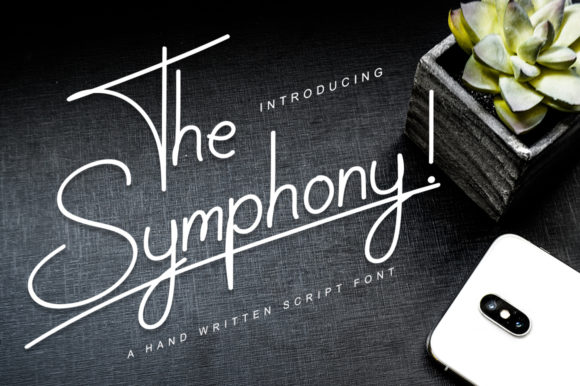
Unleash the Harmony of Expression with The Symphony! Font: A Cursive Masterpiece for Your Designs
In a world of digital artistry, where words dance across screens and pixels paint vivid tales, The Symphony! font emerges as a melodic masterpiece, a cursive conductor of elegance and grace. Its fluid strokes, reminiscent of a calligrapher's quill, weave a symphony of visual delight, transforming your designs into captivating compositions.
The Symphony! is not merely a font; it's an invitation to embark on a creative journey, a voyage where letters become instruments and your imagination the orchestra. Its clean, thin, and smooth lines evoke a sense of effortless sophistication, seamlessly blending with your design vision to create harmony and balance.
Crafted by the maestro of digital artistry, indrotanwijoyo, The Symphony! is a font that speaks to the heart. Its delicate curves and graceful flourishes capture the essence of handwritten beauty, infusing your designs with a touch of intimacy and warmth.
Immerse yourself in the world of The Symphony! and experience the joy of crafting designs that resonate with your audience. Whether you're designing magazine layouts, crafting logos that whisper elegance, or creating social media posts that dance with visual allure, The Symphony! is your perfect partner in creativity.
Indulge in the beauty of The Symphony! and elevate your designs to new heights. Let the cursive magic of this font transform your words into visual masterpieces, captivating your audience and leaving them spellbound by the sheer elegance of your creations.